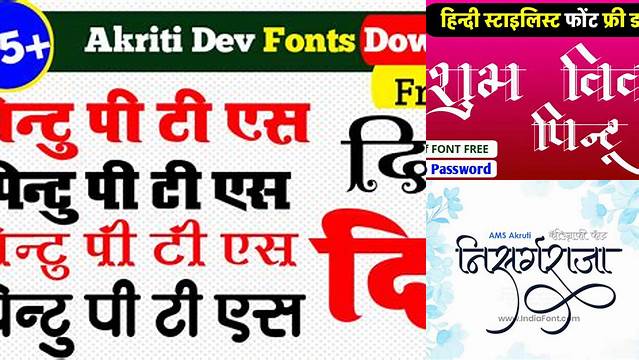
Free Akruti Fonts For Windows 10: Download & Install Guide
Understanding Akruti Fonts and Why They're Awesome
First things first, what exactly are Akruti fonts, and why should you care? Akruti fonts are primarily designed for Indian languages, offering a wide array of styles and designs to beautifully represent scripts like Devanagari, Gujarati, Marathi, and many others. They're a fantastic way to add a touch of cultural richness and visual flair to your work. They are not just about text; they're about storytelling through visual appeal. Using the right Akruti font can make your content stand out and resonate more deeply with your audience. These fonts aren’t just about readability; they are about expressing the nuances of the languages they represent.
Akruti fonts are incredibly versatile, making them suitable for a variety of uses. From creating stunning invitations and posters to designing websites and presentations, these fonts can be adapted to fit many needs. If you are working on a project that needs to look authentic and eye-catching, consider these fonts. They are known for their clarity and aesthetic appeal, ensuring that your message is not just conveyed but also beautifully presented. They can be the perfect tool for your creative endeavors. Moreover, Akruti fonts come in various styles, weights, and sizes, allowing you to customize your text to perfectly match the mood and tone of your project. This flexibility is one of the key advantages of using these fonts, as you can easily find the perfect fit for any situation. Choosing the appropriate font can significantly impact your project's effectiveness. For example, a bold Akruti font might be ideal for headlines, while a more delicate style is perfect for body text. The combination of different font styles can help create a visually dynamic and engaging design.